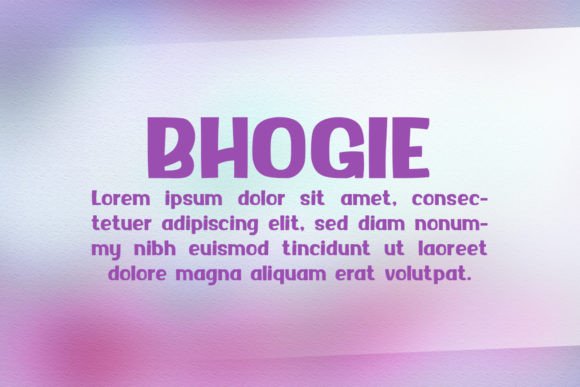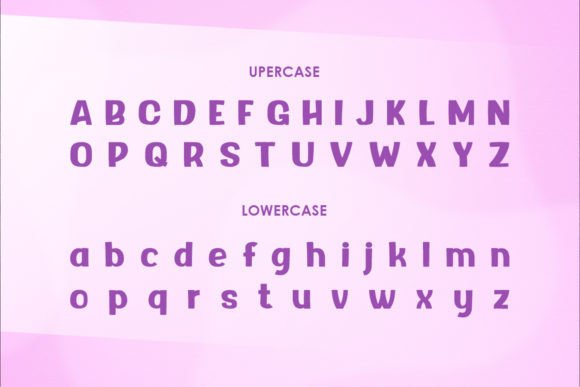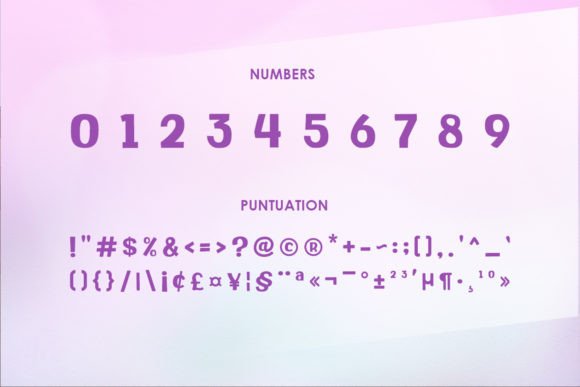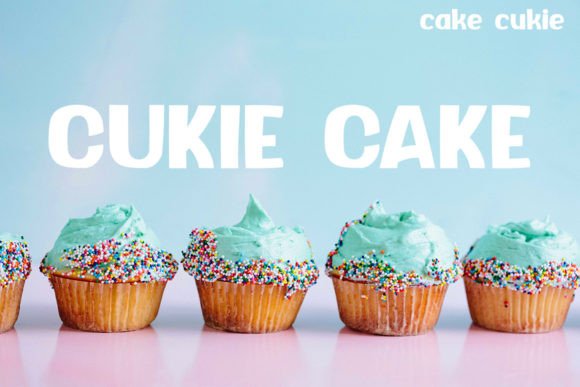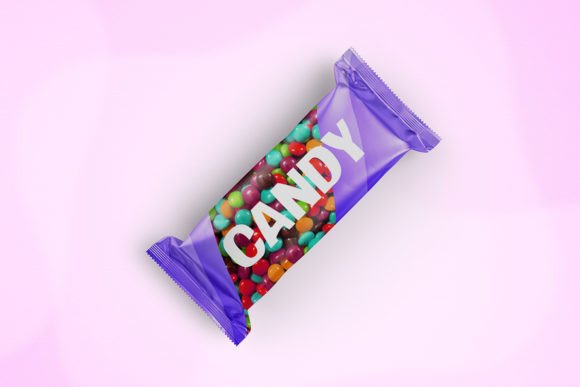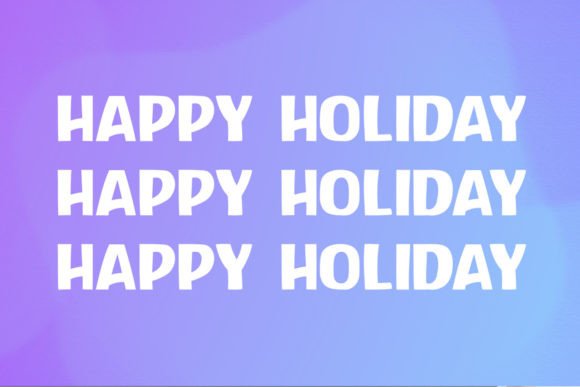
The Perfect Touch: Introducing the Bhogie Font
Have you ever been in the middle of a creative project, and suddenly, you’re stuck? The words just won’t flow, and your design is missing that one special something. It’s in moments like these that a well-designed font can be a game-changer. That’s exactly what the Bhogie Font is here to do – add a touch of fun and personality to your designs.
This beautiful display font was crafted specifically for those who crave a refreshing look in their projects. Whether you’re a graphic designer, a social media manager, or a blogger, the Bhogie Font is sure to bring a smile to your face and a pop of color to your designs. With its unique style and playful feel, this font is a valuable addition to any designer’s toolkit.
Bhogie Font Key Features
- Font Family: Bogie is a sans-serif font family.
- Unique Characteristics: Bogie Font features a modern, clean, and minimalist design with a focus on legibility and readability.
- Language Support: Bogie Font supports a wide range of languages, including Latin, Cyrillic, and Greek alphabets.
- Font Weight: Bogie Font is available in multiple weights, including light, regular, bold, and extra bold.
Bhogie Font Review
I recently had the chance to experiment with the Bhogie Font, and I must say, it’s a unique and interesting addition to any design project. ✨ One thing that immediately stood out to me was the font’s ability to evoke a sense of nostalgia and classic charm. It’s perfect for projects that require a touch of vintage flair.
Another aspect that works well is the font’s versatility. ✨ It can be used for a wide range of applications, from body text to headings, and even logos. The Bhogie Font is also highly legible, making it an excellent choice for projects that require clear communication.
- ⚠️ Limited character set: The Bhogie Font has a relatively small character set, which may be a limitation for projects that require a wide range of characters.
- ⚠️ May not be suitable for modern designs: The font’s vintage aesthetic may not be the best fit for modern or minimalist designs.
Overall, I think the Bhogie Font is a great choice for projects that require a unique, classic touch. While it may have some limitations, it’s a versatile and highly legible font that can add a lot of character to your designs. If you’re looking for a font that can evoke a sense of nostalgia and charm, the Bhogie Font is definitely worth checking out.
The Bhogie font is ideal for creative projects, such as:
2. Social media graphics and ads.
3. Branding and marketing materials.
4. Artistic and creative writing projects.
Alternatives to Bhogie Font for Designers
Great Vibes is a beautiful, elegant script font that is perfect for creating a luxurious and sophisticated look. It’s ideal for use in wedding invitations, luxury branding, and high-end advertising.
Compared to Bhogie Font, Great Vibes has a more refined and polished feel, making it a great choice for designers who want to convey a sense of sophistication and elegance. While Bhogie Font has a more playful and whimsical feel, Great Vibes is more suitable for formal and professional applications.
Carolyna Pro is a modern, elegant script font that is perfect for creating a sleek and sophisticated look. It’s ideal for use in fashion branding, luxury advertising, and high-end packaging design.
Compared to Bhogie Font, Carolyna Pro has a more modern and contemporary feel, making it a great choice for designers who want to create a bold and eye-catching look. While Bhogie Font has a more classic and timeless feel, Carolyna Pro is more suitable for modern and trendy applications.